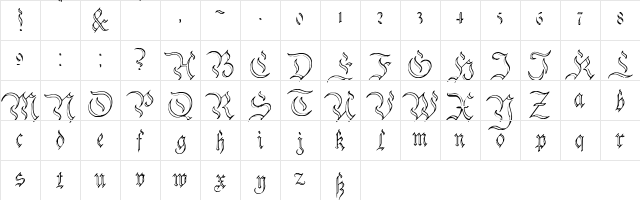
Charterwell No3 Regular
Designer: PJL
Design Context for Charterwell No3
Charterwell No3 is a composed and adaptable typeface that performs quietly and consistently across a wide range of design contexts.